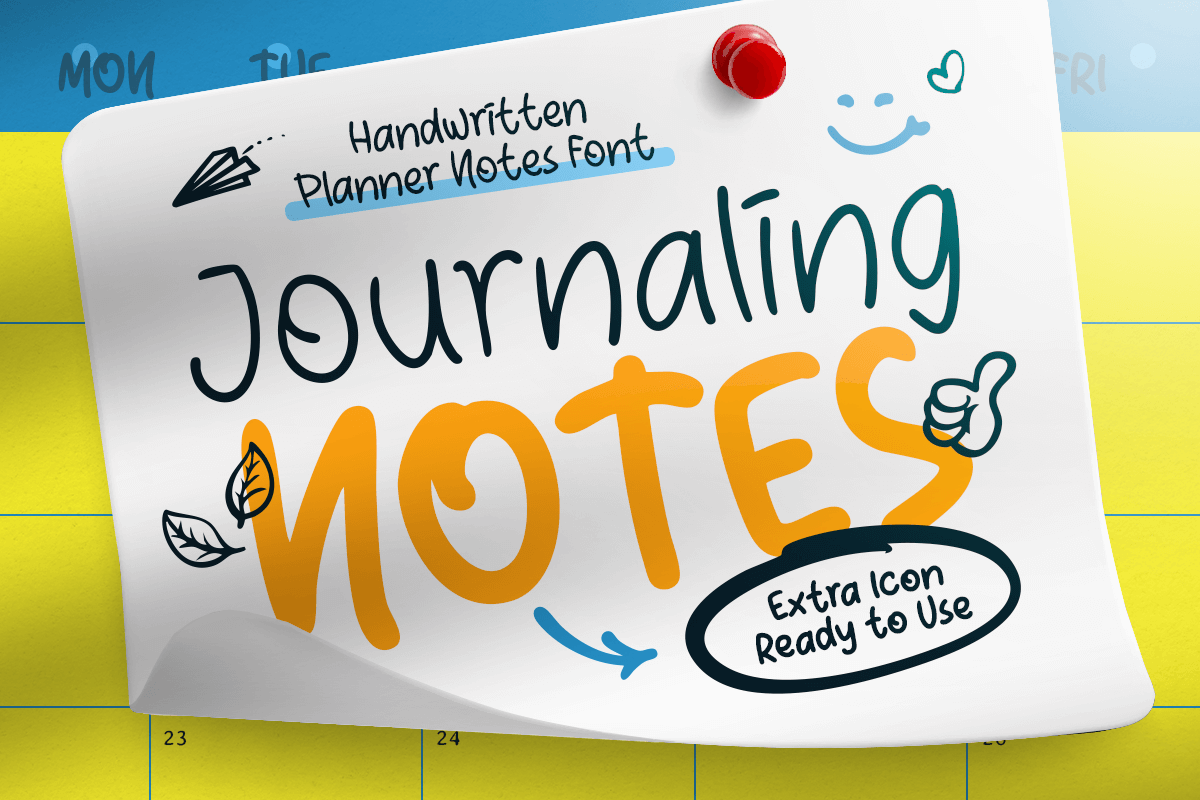
Journaling Notes
-Handwritten Notes Font
Journaling Notes - Handwritten Notes Font
JOURNALING NOTES is a handwritten planner font inspired by natural handwriting styles, perfect for bullet journals, planners, stationery, and creative designs. It captures the warmth and spontaneity of real pen strokes, giving every project a personal and handmade touch.
Ideal for digital planners, printable stickers, calendars, packaging, and social media templates, JOURNALING NOTES adds a cozy, authentic charm to your typography. Whether you’re designing a journaling kit, a daily planner layout, or a motivational quote, this font helps bring that hand-drawn aesthetic to life effortlessly.
Its simple yet expressive characters are carefully designed for readability and flow, making it versatile for both personal and commercial projects. Combine it with sans serif or script fonts to create adorable planner compositions or cozy branding visuals.
JOURNALING NOTES – Handwritten Planner Notes Font Features
• Authentic handwritten letterforms inspired by journaling styles
• Ready with 4 Fonts: Light, Regular, Bold, and Icon Collections
• Perfect for planners, stationery, stickers, and note designs
• Friendly, casual appearance with natural pen-style flow
• Ideal for digital planners, printables, and social media content
• OpenType features for extra versatility
Make every note feel personal with JOURNALING NOTES – the ultimate handwritten planner font for cozy, creative, and journaling-inspired designs. ✏️✨